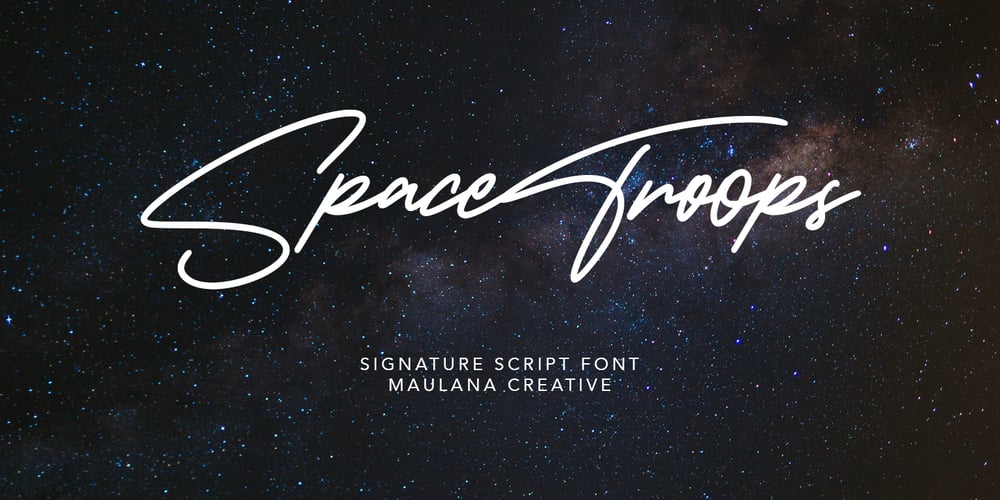
Spacetroops
Spacetroops font
Spacetroops Font Family was designed by Gilang Maulana and published by Maulana Creative. Spacetroops contains 1 styles and family package options. Give your designs an authentic brush handcrafted feel. Spacetroops is perfectly suited to signature, stationery, logo, typography quotes, magazine or book cover, website header, flyer, clothing, branding, packaging design and more.Thanks for use this font.MaulanaCreative